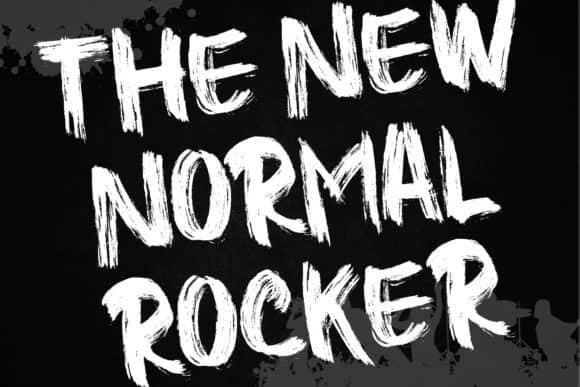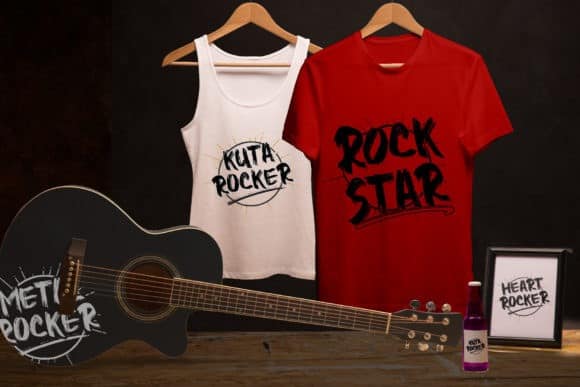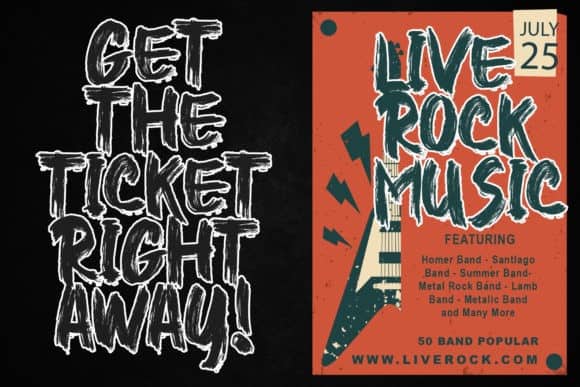
Higher Jump Brush Font is a classy handmade brush typeface. Made from font designer named thomasaradea. Combined with brush textured handwritten will make your design project more powerful. Made for any professional project branding. It is the best for logos, branding and of course quotes. Every letter has a unique and beautiful touch.